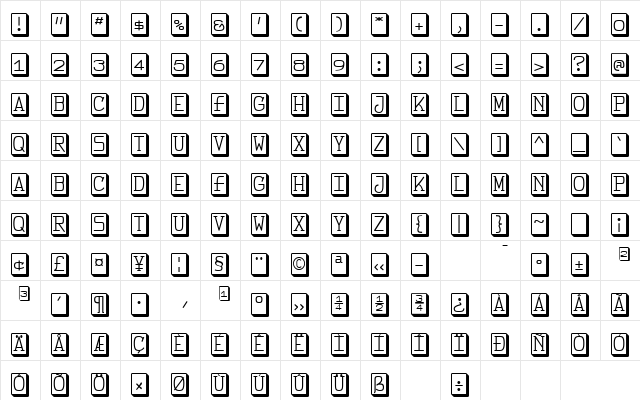
FeggoliteKeyed Regular
Design Context for FeggoliteKeyed Typeface
FeggoliteKeyed takes a measured approach to typography — its balanced proportions and neutral character make it a reliable workhorse for both digital and print work.